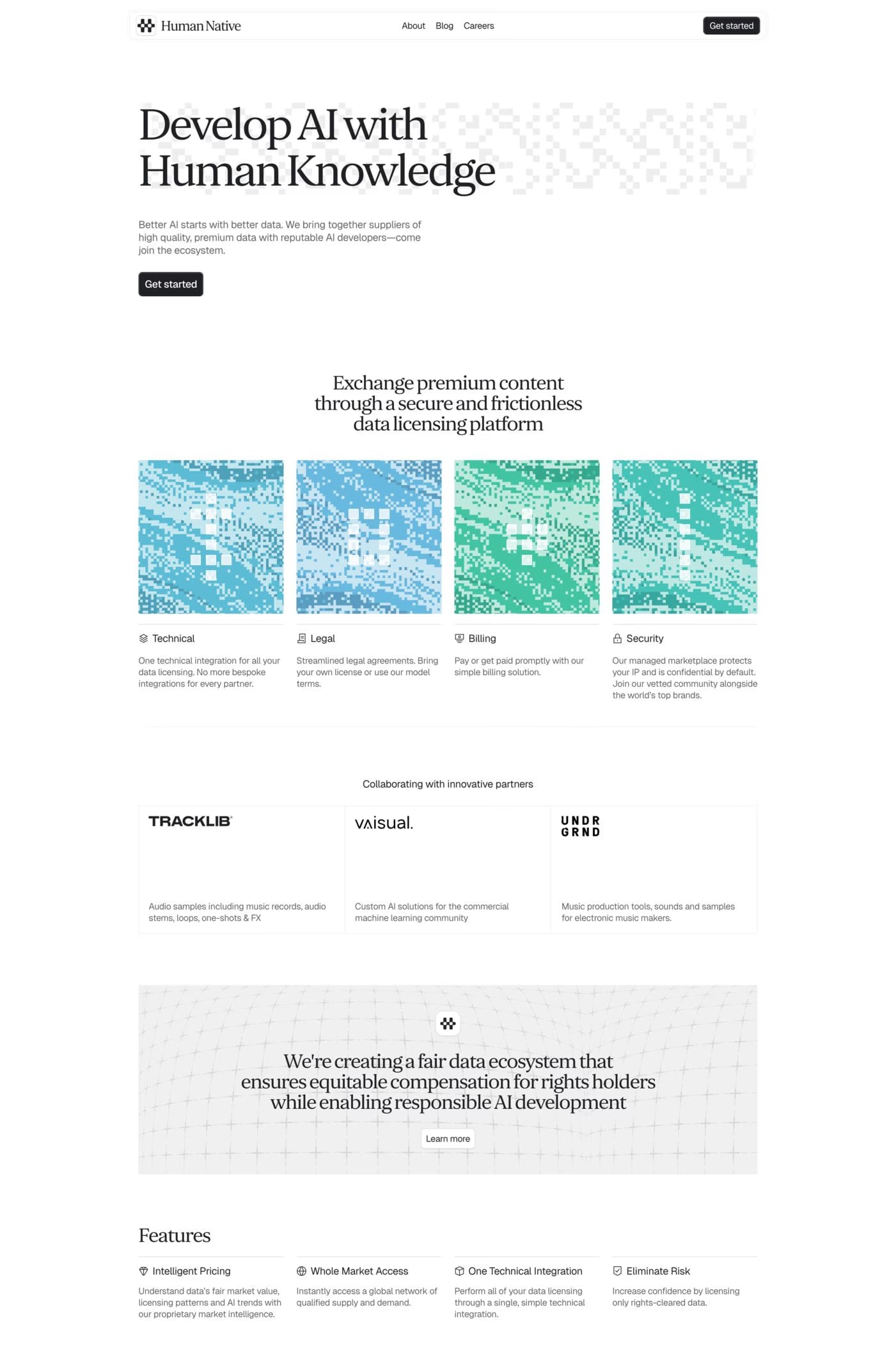
Orbikular is a sans-serif typeface from CoType Foundry.
Orbikular is a timeless serif typeface that bridges the gap between Transitional and Scotch Roman styles. Instantly familiar yet undeniably unique, Orbikular offers a balance of tradition and modernity, making it a reliable classic for any designer’s toolkit.